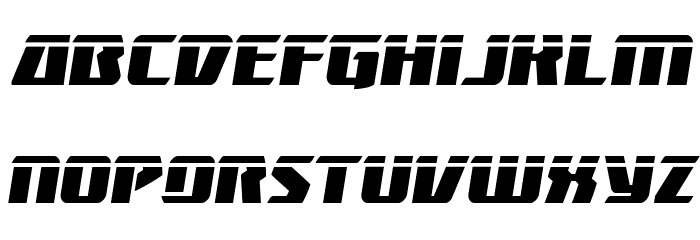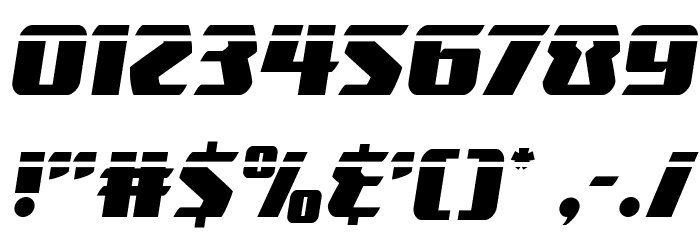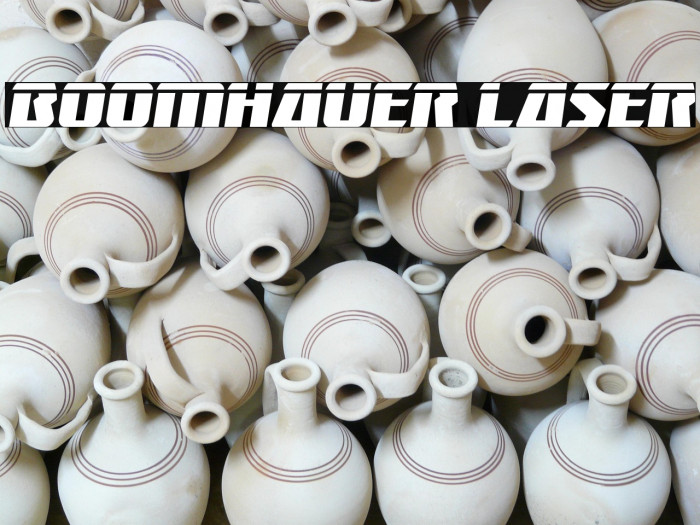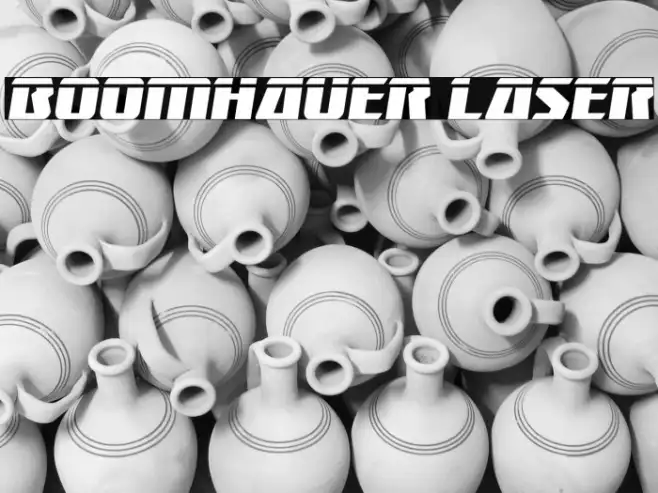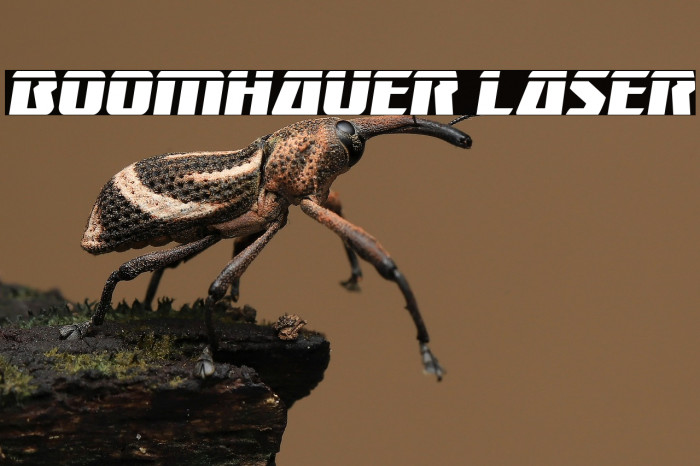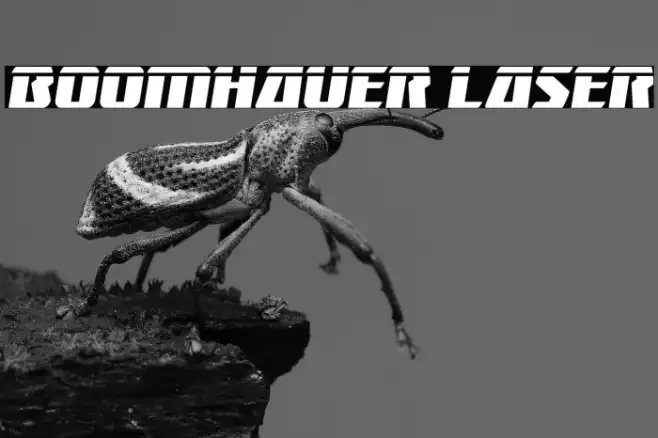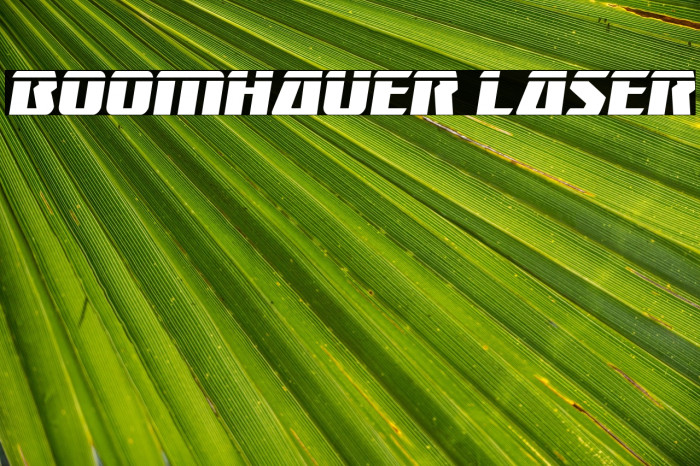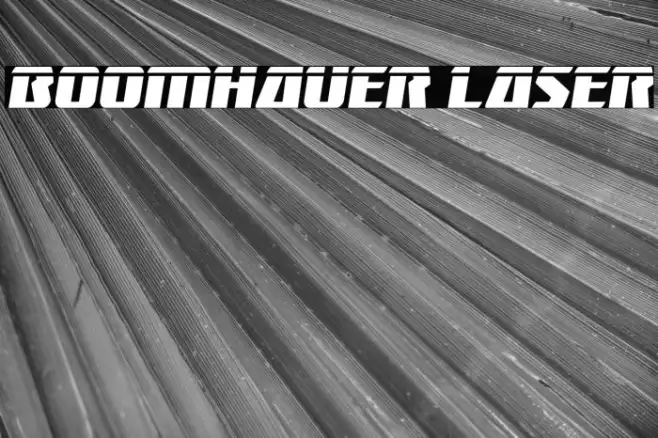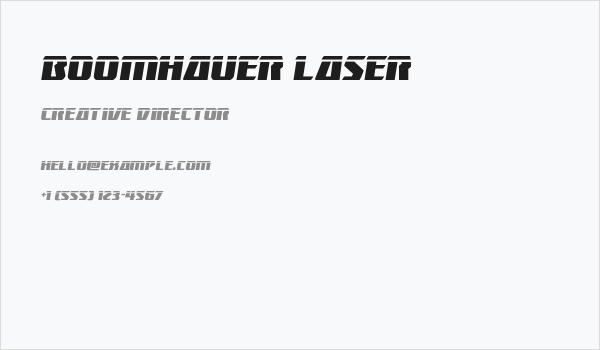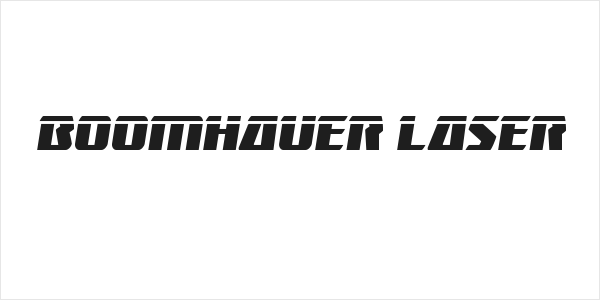
Boomhauer Laser Font
This font features a bold, futuristic design with sharp angles and a distinct geometric style. The characters are wide and have a strong presence, making them ideal for attention-grabbing headlines or logos. The uppercase and lowercase letters maintain a consistent style, with a slight slant that adds a dynamic feel. The numbers and special characters are equally bold and follow the same angular design, ensuring uniformity across all text elements. The font's unique style is reminiscent of sci-fi themes, making it suitable for projects that require a modern and edgy look.
A bold, futuristic font with sharp angles and a geometric style.
- Proposed Projects: Ideal for sci-fi themed projects, modern logos, video game titles, and dynamic posters.
- Width: Expanded